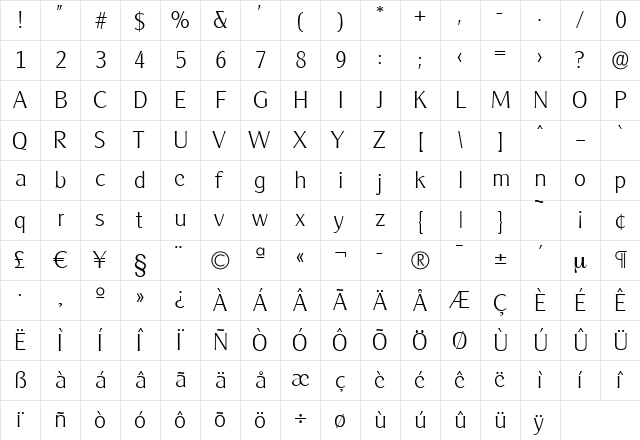
AlexanderBecker-ExtraLight Regular
Design Context for AlexanderBecker-ExtraLight Typeface
AlexanderBecker-ExtraLight takes a measured approach to typography — its balanced proportions and neutral character make it a reliable workhorse for both digital and print work. Its slender proportions lend an understated elegance to any composition.